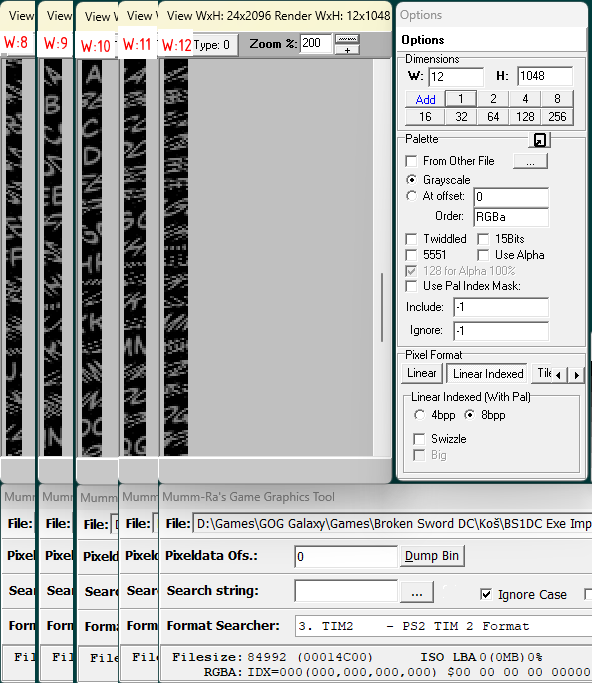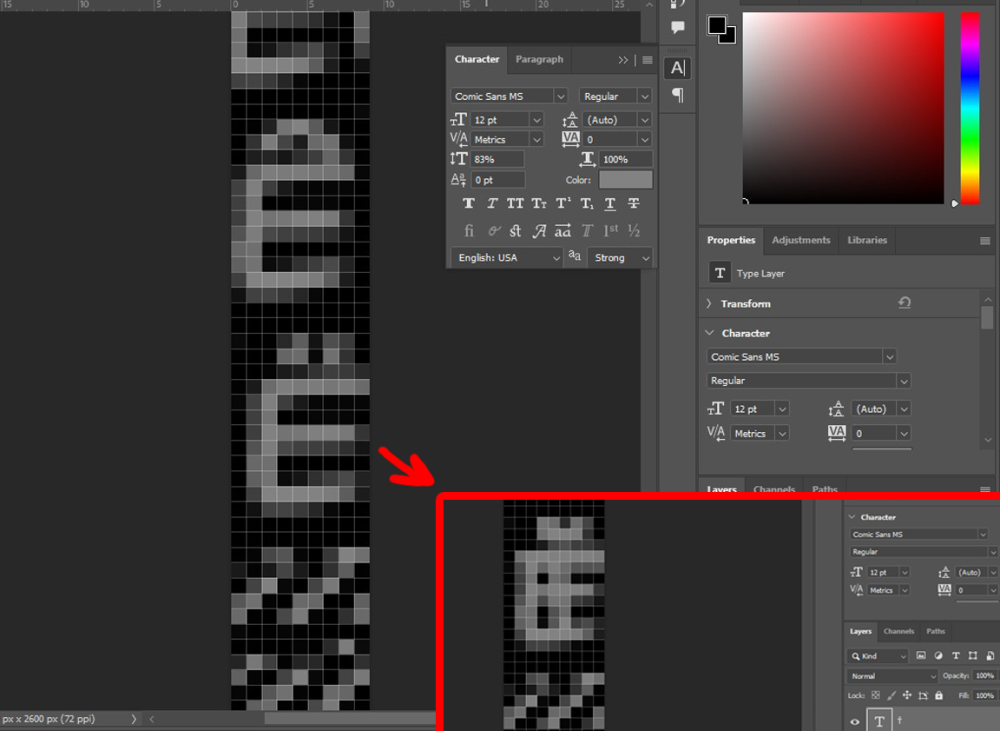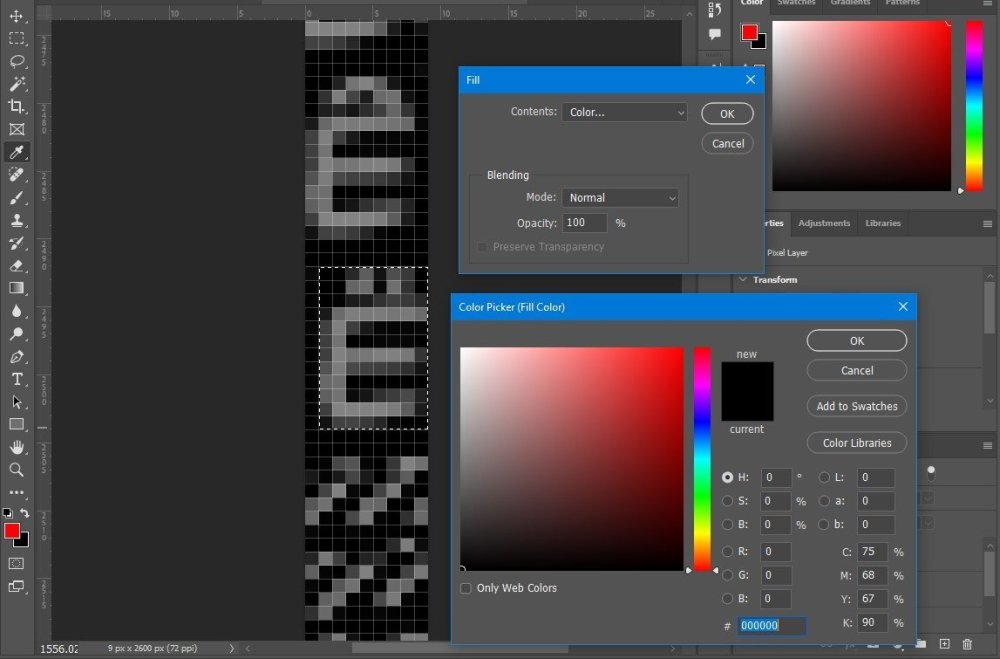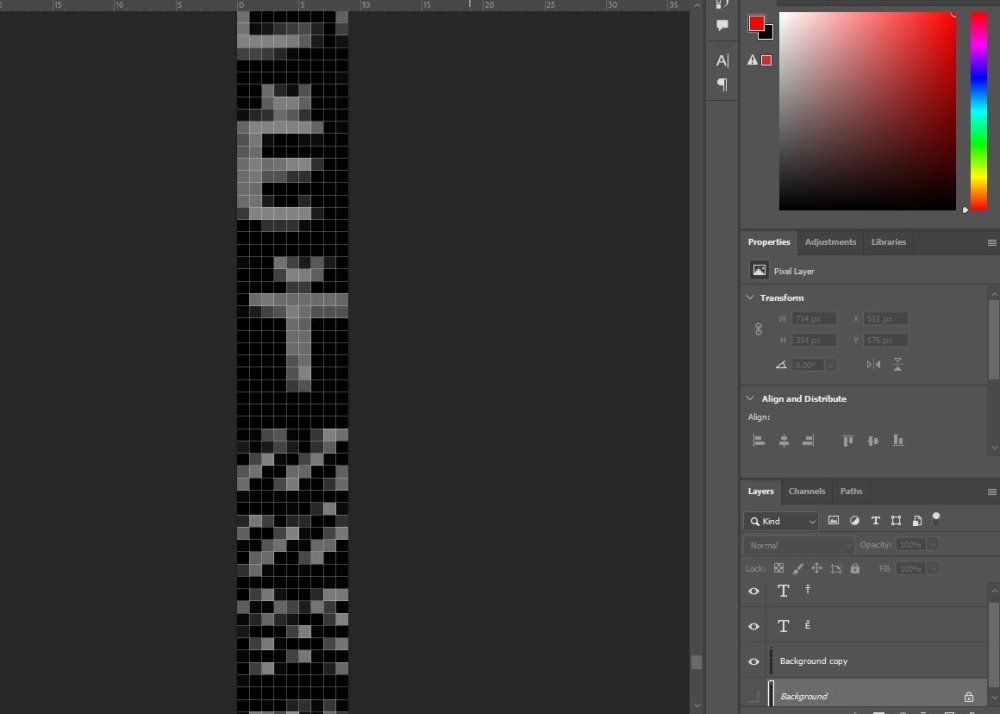
[PC] Broken Sword 1 DC - bitmap font
I need some advice on how to edit the font (game subtitles) in an older game where the font is like an image (bitmap). I need to edit the font because of the different character set used to translate the game text. I can edit a font saved separately in TTF format, but a bitmap font is a new thing for me.
I used the MummGGTool. The result is an image in the shape of a narrow strip with letters. What is strange to me is that the letters have different slants and some are split. I was able to compensate for the slope in some of the letters by changing the width of the image (see image). Some of the letters do line up, but they remain split.
Following the advice on this site, I've managed to find and import a file containing this font, but I don't know what to do next with the image, how to edit it.
I played with photoshop for a long time, but I finally understood how things work.
1. Using MummGGTool, locate the fonts. These are positioned at various widths, heights, and offsets depending on the letter. Right-click to save the image as a .png file.
2. Load the .png file into Photoshop:
• Each letter must be processed separately due to their varying positions.
• I used "Comic Sans MS," the closest font to the original.
• It's recommended to duplicate the original layer for each file to safeguard against errors.
3.Follow these steps for each letter:
3.1. Write the target letter (e.g., "Ť") and place it over the original letter (e.g., "Ë"). Adjust the size and color to match the original, ensuring the new letter fits within the boundaries.
3.2. Remove the old letter:
• Use the Rectangular Marquee Tool to select the letter.
• Right-click and choose Fill > Content: Color, then fill with black.
• It is extremely important to select within the letter to avoid ruining the font.
4. Save the edited image as a .png file.
5. Return to MummGGTool and double-click the image to load the new .png file.
Note: Some letters may be misaligned after editing. To adjust, reload the font into MummGGTool > extact image, use Photoshop to select the problematic letter, and use the "Free Transform" option to reposition it.
This tutorial aims to assist those who wish to translate the game but encounter font issues within bs1dc.exe.
Additionally, I made an edit of the Czech letters that he needed and sent the necessary to the author via private messages.